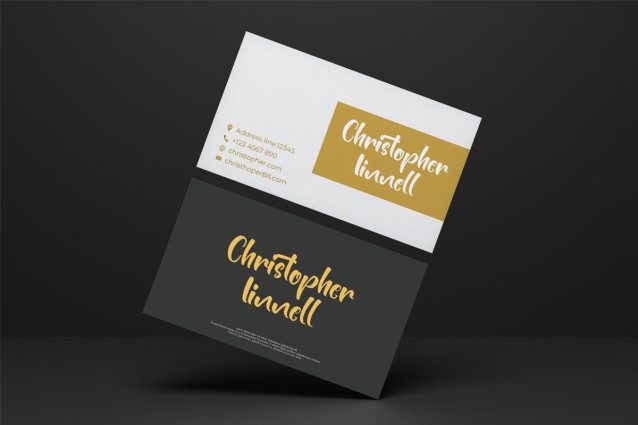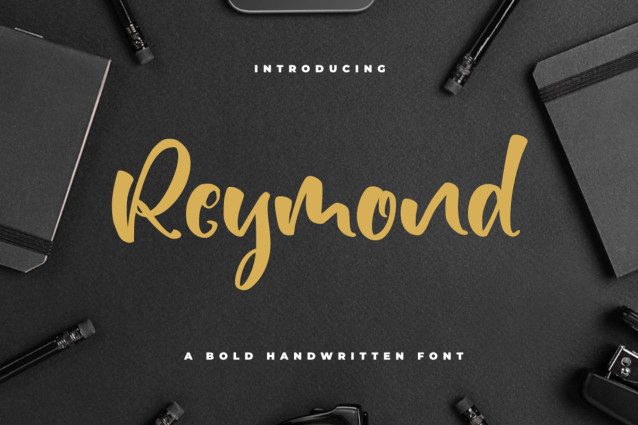
Reymond Font
Reymond Font is an elegant and bold script font. Fall in love with its incredibly versatile style and use it to create gorgeous wedding invitations, beautiful stationary art, eye-catching social media posts, and much more!